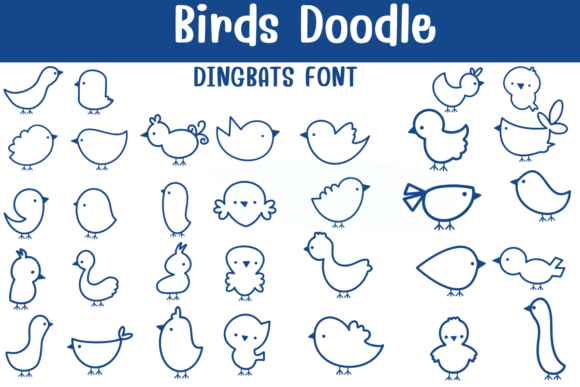
Discover the Delightful World of Birds Doodle Font
As a designer, I’m always on the lookout for unique and versatile fonts that can elevate my projects. And, let me tell you, Birds Doodle did not disappoint. This delightful dingbats font features a wide variety of charming bird illustrations, from tiny songbirds to quirky chicks, making it perfect for spring projects, kids’ crafts, educational materials, or nature-inspired designs.
An Honest Review of Birds Doodle Font
- 🎨 A vast collection of adorable bird illustrations that add a touch of whimsy to any design
- ✅ Easy to use and navigate, even for those who are new to dingbats fonts
- 🌸 Perfect for spring-themed projects, kids’ crafts, and educational materials
While Birds Doodle is an amazing font, there are a few things to keep in mind:
- ⚠️ The font may not be suitable for formal or professional designs, as it’s more geared towards playful and creative projects
The Story Behind Birds Doodle Font
Birds Doodle was created by a talented designer who wanted to bring a touch of whimsy and playfulness to the world of typography. Inspired by the beauty of nature and the joy of childhood, the designer crafted a font that would delight designers, crafters, and creative hobbyists alike. 🌼
| Font Name | Birds Doodle Font |
| Author | Sontaya |
Q: What type of projects is Birds Doodle best suited for?
A: Birds Doodle is perfect for spring projects, kids’ crafts, educational materials, or nature-inspired designs.